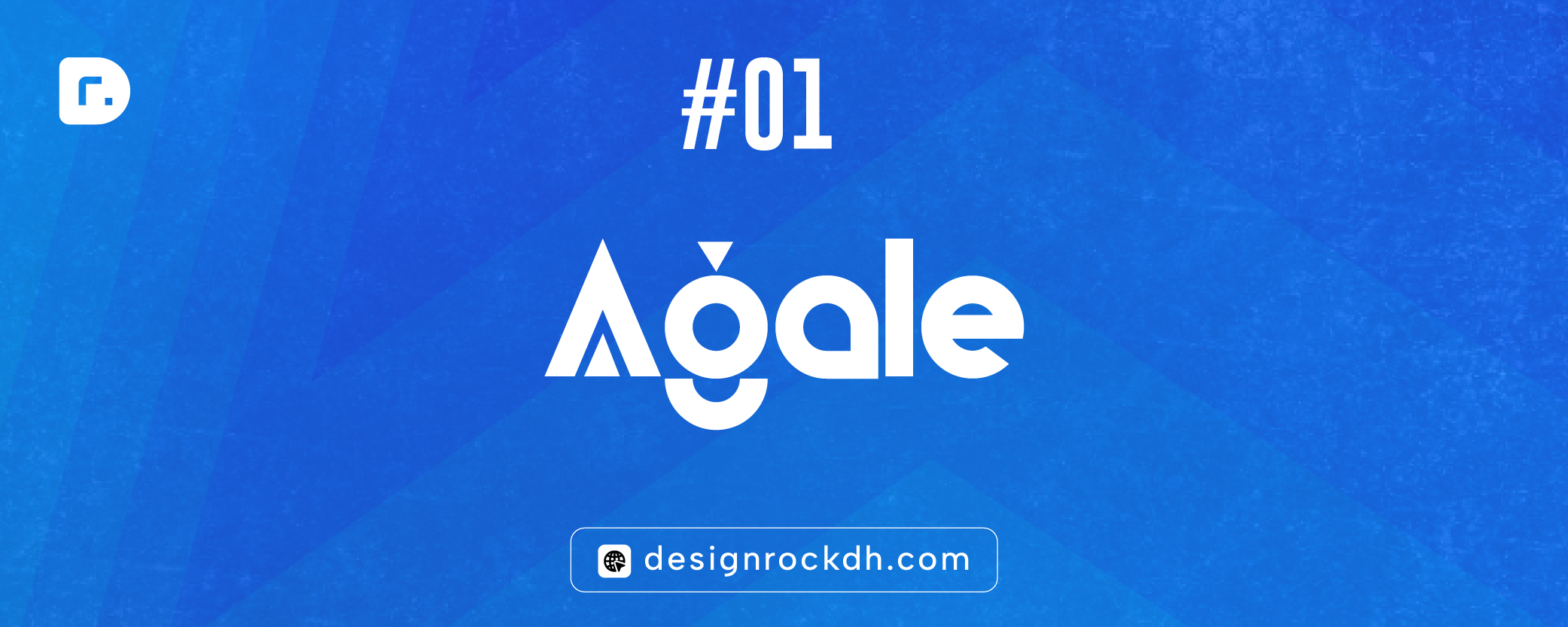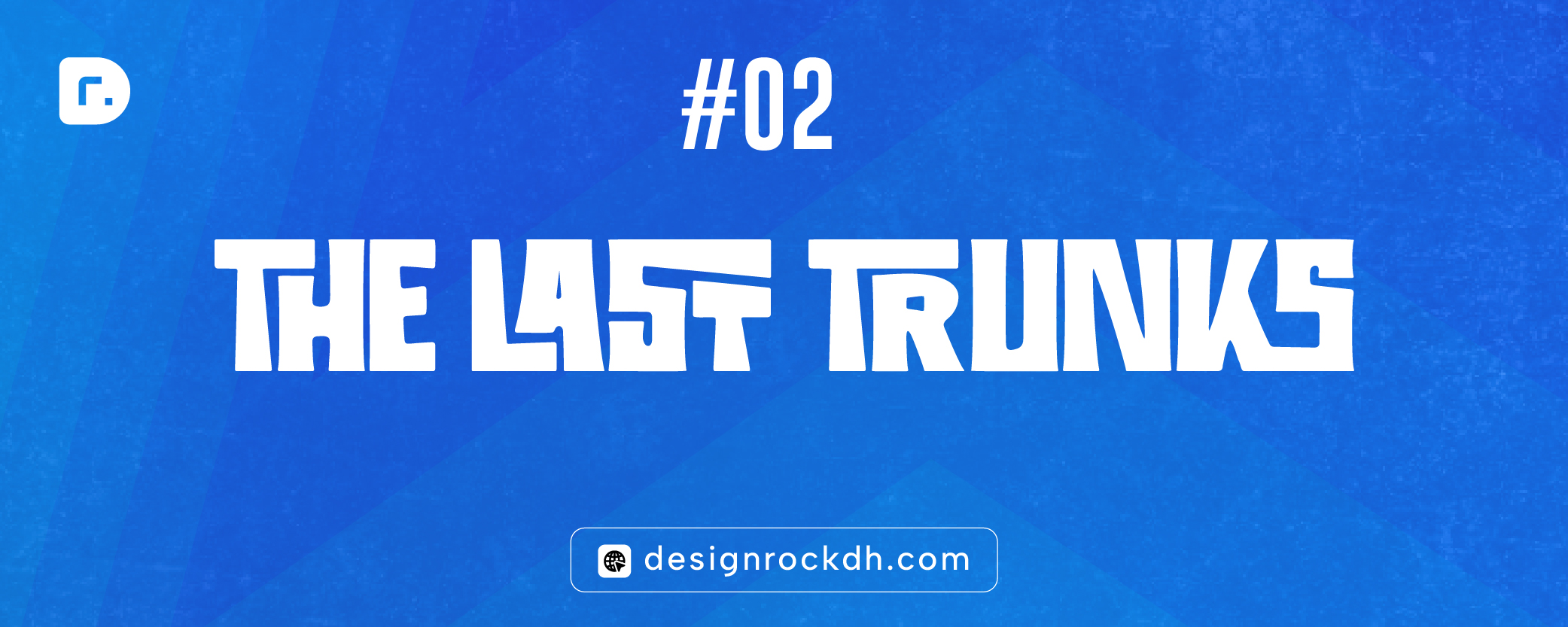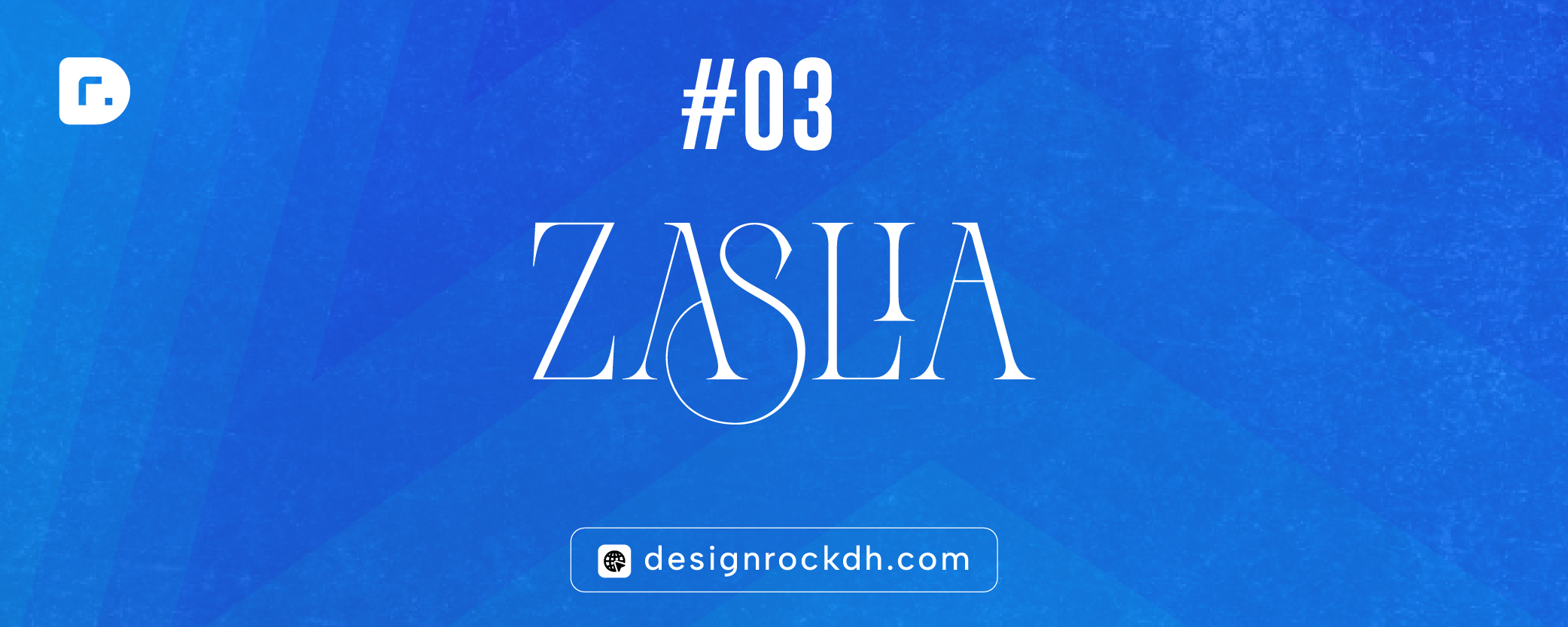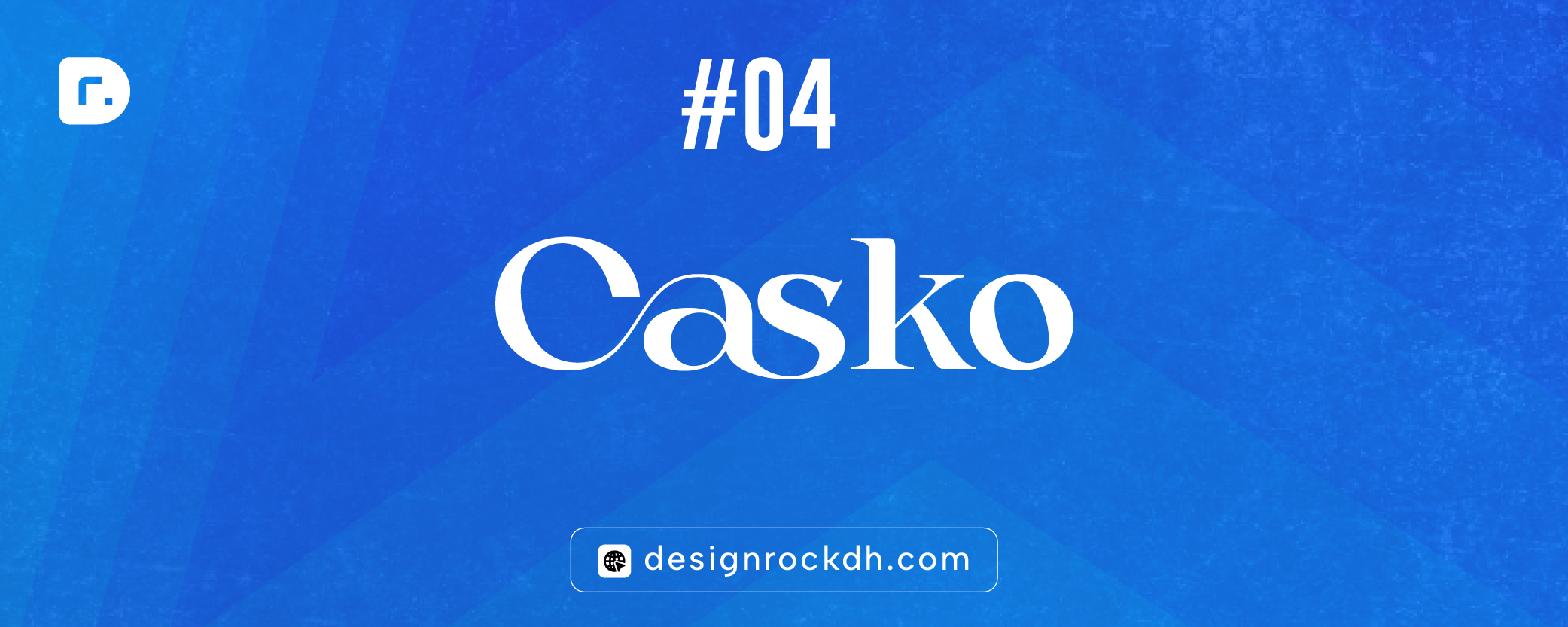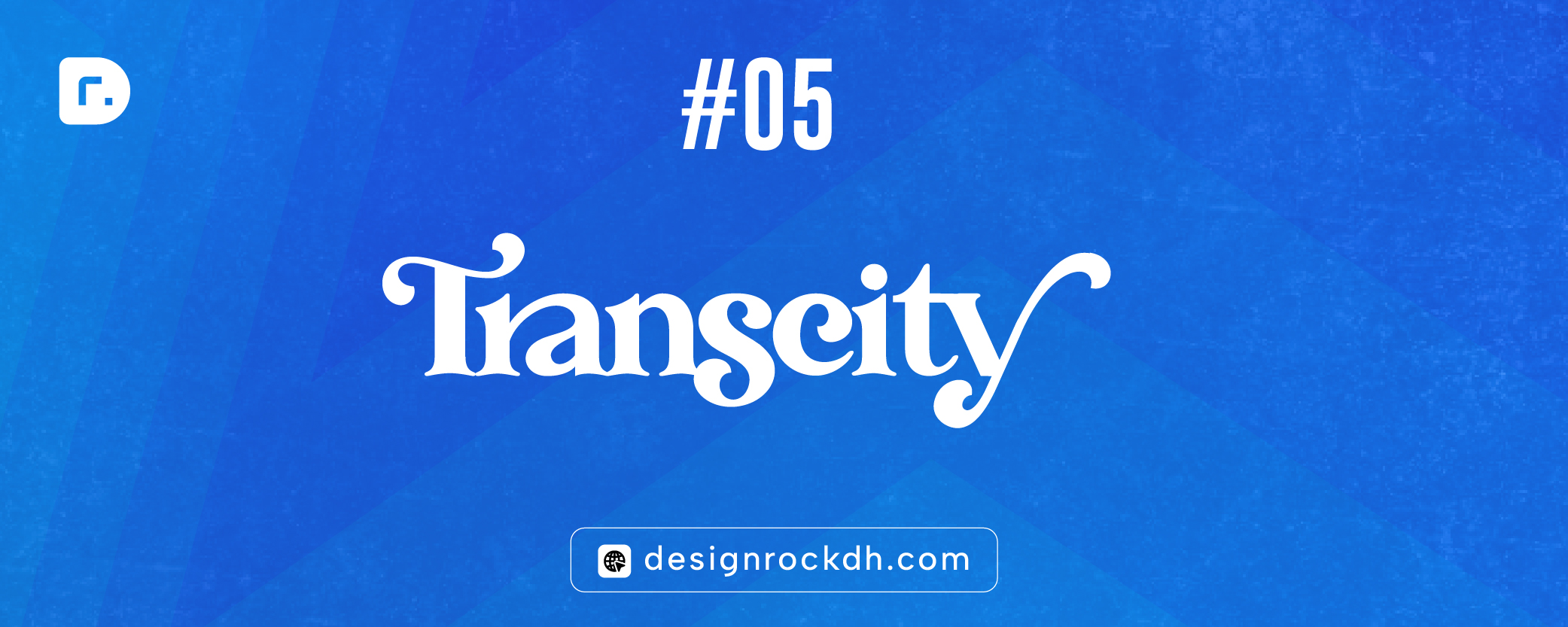
A great logo starts with great typography.
While thousands of fonts are available today, only a handful naturally have the balance, personality, and structure needed to create a professional-looking logo. The right typeface can instantly make a brand feel modern, trustworthy, luxurious, or memorable—often without relying on an icon or symbol.
Think about some of the world’s most recognizable brands. Many are identified not just by their logos but by the typography itself. A carefully chosen font helps communicate a brand’s personality, builds recognition, and creates a lasting first impression across websites, packaging, business cards, and social media.
Whether you’re building a startup, launching a clothing brand, designing for a client, or refreshing your personal brand, choosing the right logo font is one of the most important design decisions you’ll make.
In this guide, we’ve selected five fonts that already have strong logo potential. Each one offers a different style—from clean geometric lettering to elegant serif typography and bold retro designs. We’ll also explain where each font works best and why designers continue to use these styles for professional branding.
1. Agale – Minimal Geometric Logo Font
If your goal is to create a logo that feels modern, clean, and professional, Agale is an excellent place to start.
Agale is a geometric typeface with balanced proportions and carefully crafted letterforms. Its minimalist design gives logos a polished appearance without feeling overly simple. Because the font avoids unnecessary decorative elements, it remains timeless and works well across different industries.
One of Agale’s biggest strengths is its readability. Whether your logo appears on a mobile app icon, a website header, product packaging, or a large billboard, the letterforms remain crisp and easy to recognize. This scalability makes it a practical choice for businesses that need consistent branding across both digital and print media.
Why Designers Like Agale
Instead of relying on flashy details, Agale creates impact through precision. The spacing between letters feels balanced, the geometry is consistent, and every character contributes to a clean visual rhythm. These qualities help logos appear more refined and professionally designed.
Key Features
- Strong geometric construction
- Balanced letter spacing
- Minimal yet distinctive character shapes
- Excellent readability at different sizes
- Clean and modern appearance
Best For
Agale works especially well for:
- Technology startups
- SaaS platforms
- Creative and digital agencies
- Personal brands
- Software companies
- Modern business identities
Strengths
One of the reasons designers appreciate Agale is its versatility. It pairs well with simple icons, performs beautifully in black-and-white logos, and adapts easily to responsive branding systems. Because of its clean design, it also gives businesses room to evolve their visual identity over time without making the logo feel outdated.
Things to Keep in Mind
Although Agale is highly versatile, its minimalist style may not be the best fit for brands that need a playful, handcrafted, or highly decorative personality. For those industries, a script or display font might communicate the brand more effectively.
2. The Last Trunks – Bold Retro Display Font
Some brands are designed to blend in, while others are created to grab attention the moment people see them. If you’re building a bold identity that people will remember, The Last Trunks is a font worth considering.
Inspired by vintage display typography, this typeface combines thick letterforms with a strong retro personality. It feels confident, energetic, and expressive without becoming difficult to read. Whether you’re creating a clothing label, sports brand, or merchandise logo, The Last Trunks delivers an eye-catching look that immediately stands out.
Unlike many decorative fonts that sacrifice clarity for style, The Last Trunks maintains excellent readability. Its heavy strokes and balanced proportions ensure that logos remain recognizable across different sizes and applications, from product packaging to social media graphics.
Why Designers Love It
The biggest strength of The Last Trunks is its visual impact. Every letter carries weight, giving the entire logo a powerful presence. This makes it especially effective for brands that want to communicate confidence, creativity, and individuality.
The retro influence also gives the font a timeless quality. Instead of following short-lived design trends, it captures the classic appeal of vintage typography while still feeling fresh enough for modern branding.
Another reason designers appreciate this font is its versatility. Although it’s bold, it doesn’t overpower supporting design elements. It pairs nicely with simple icons, badge logos, and minimal color palettes, allowing the typography to remain the main focal point.